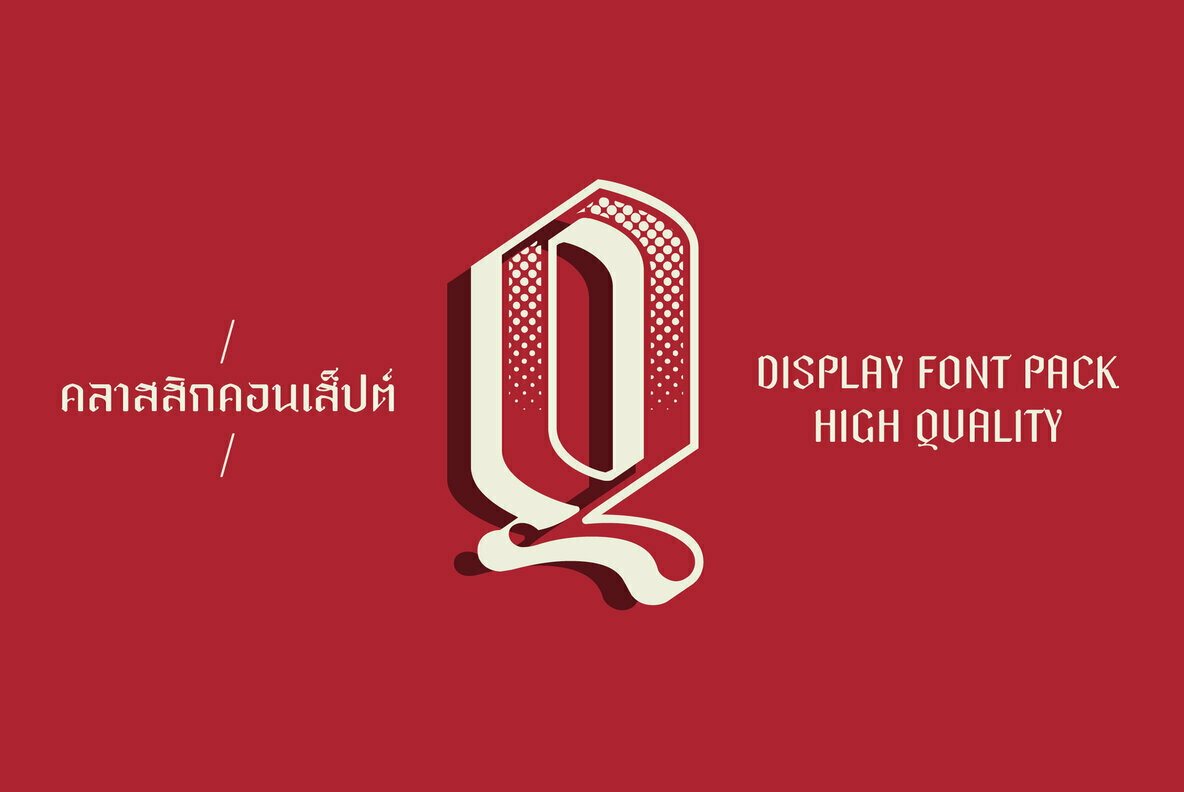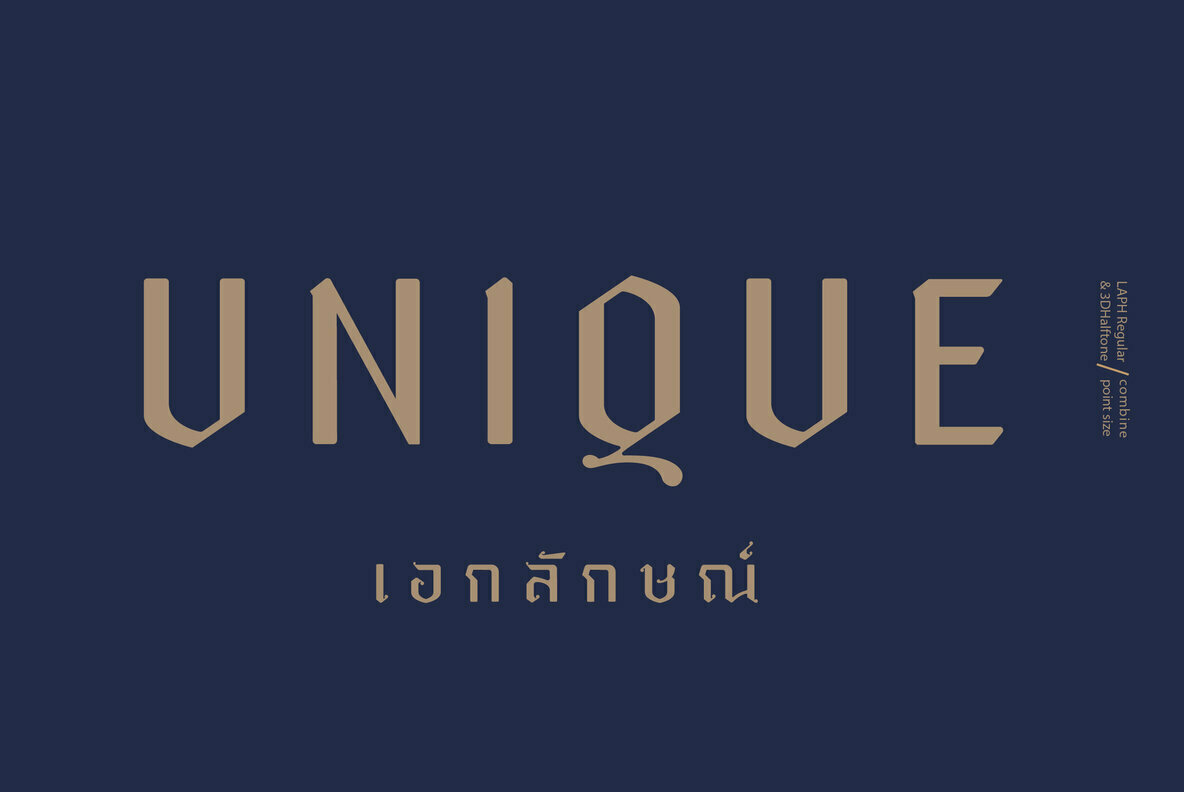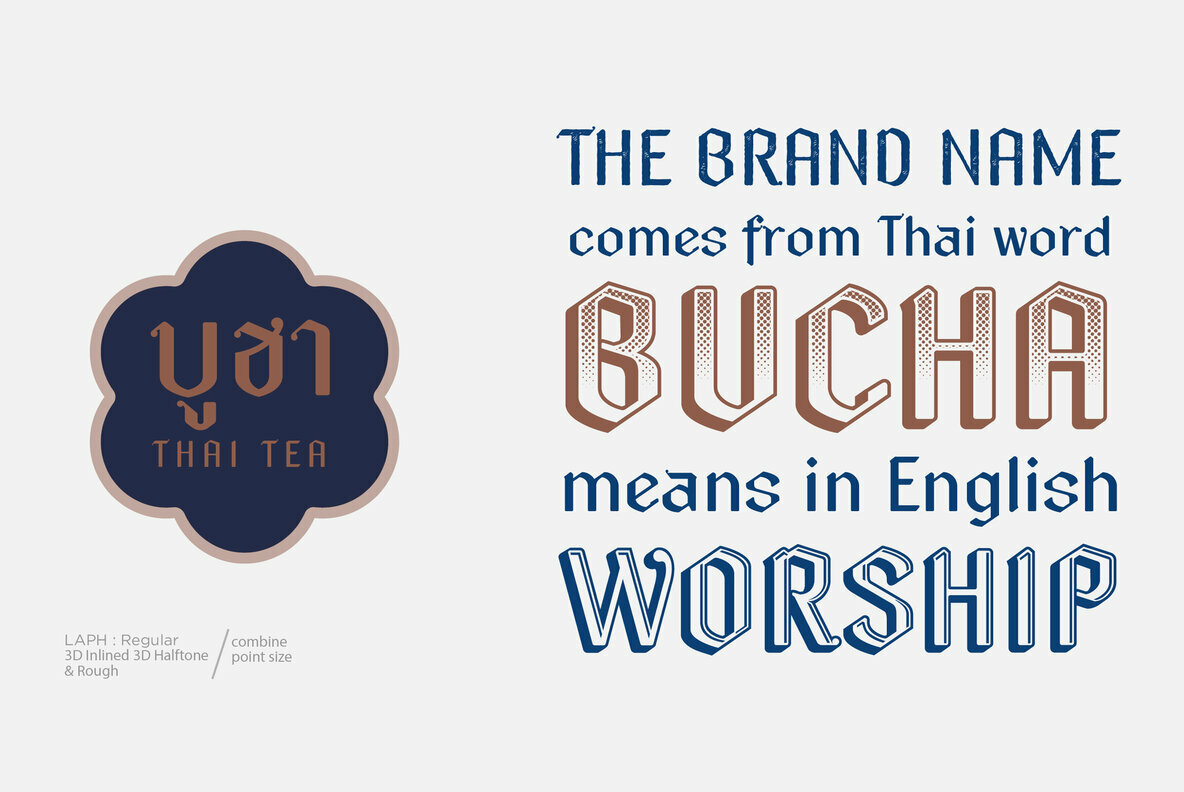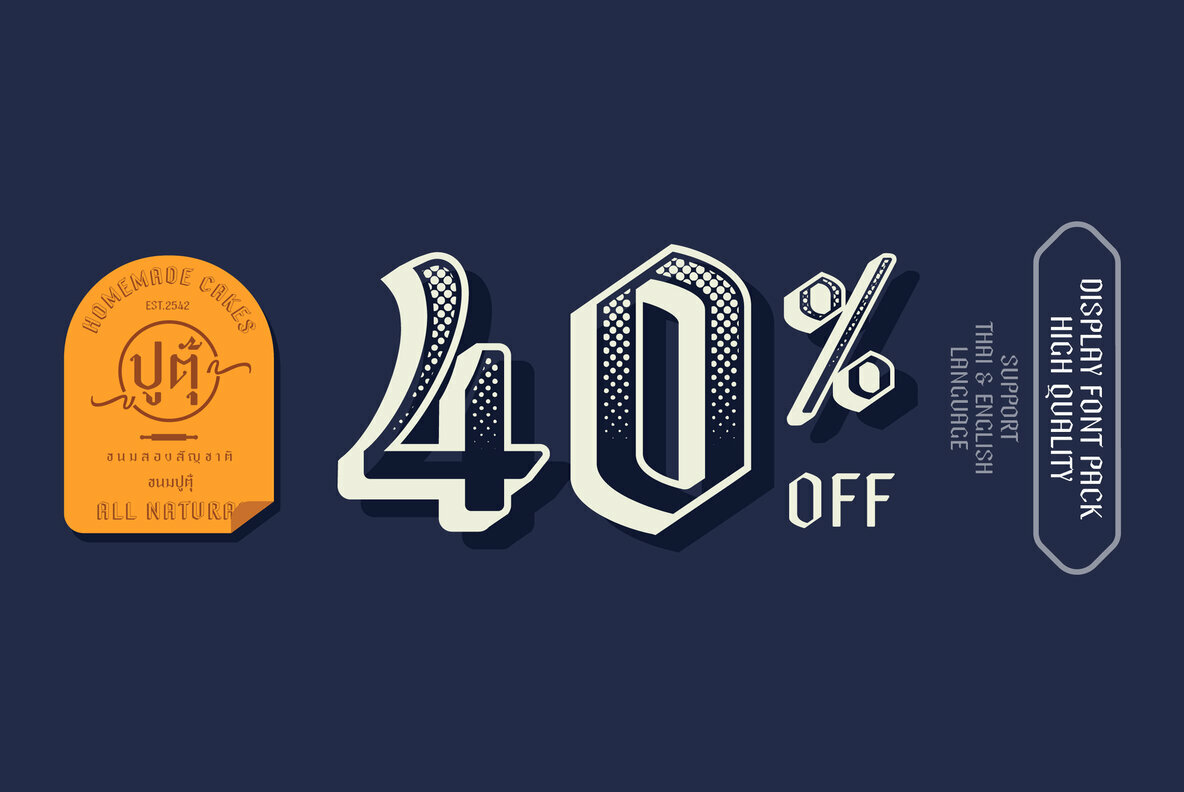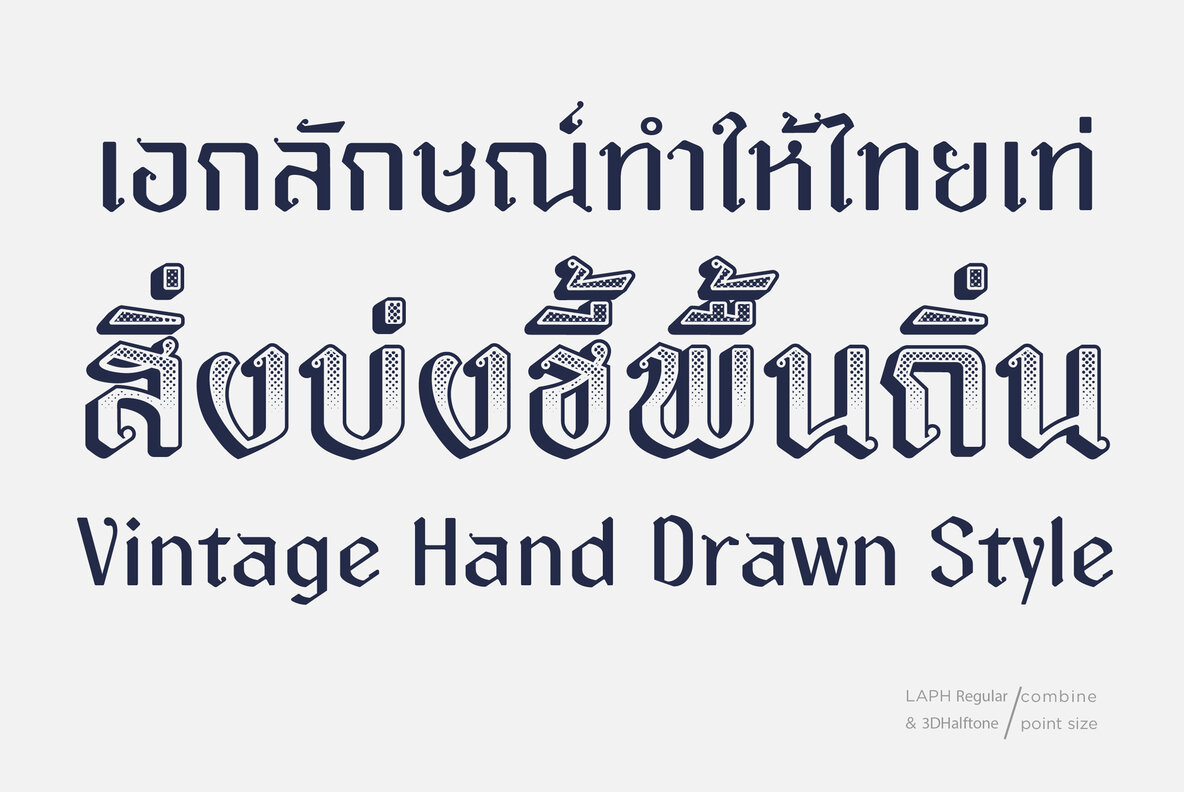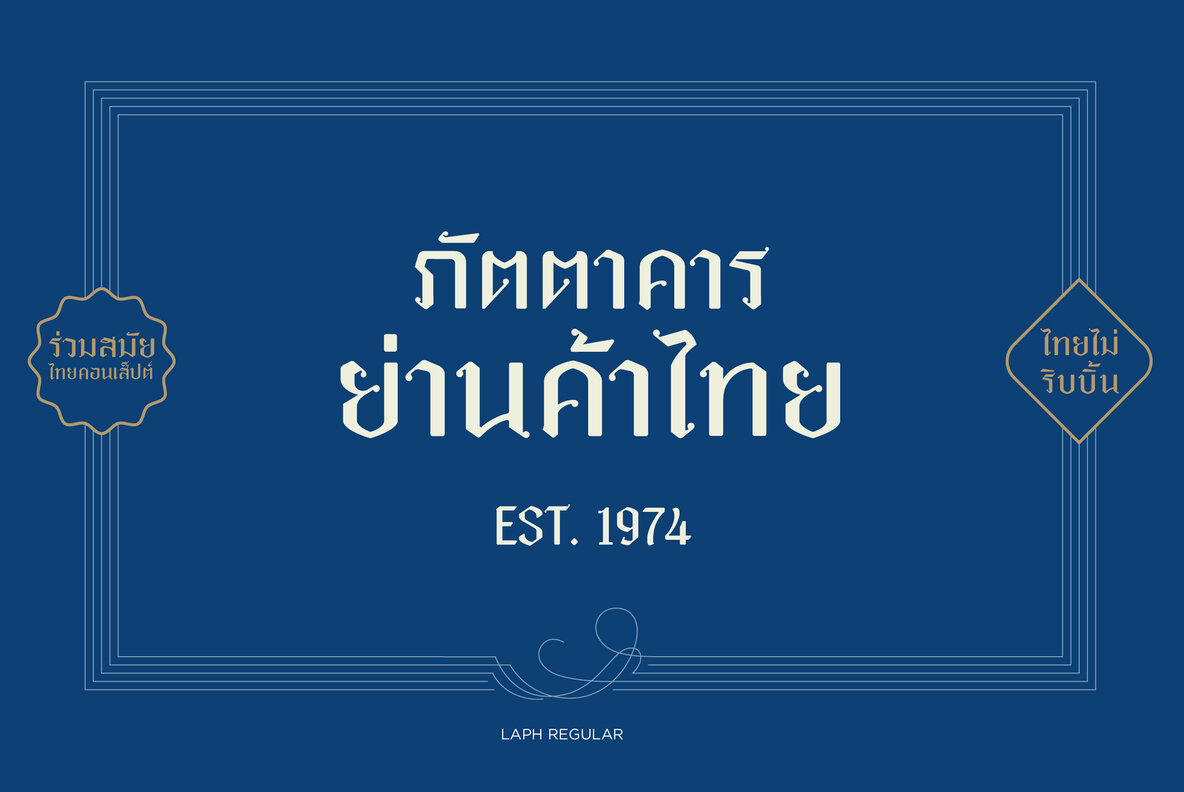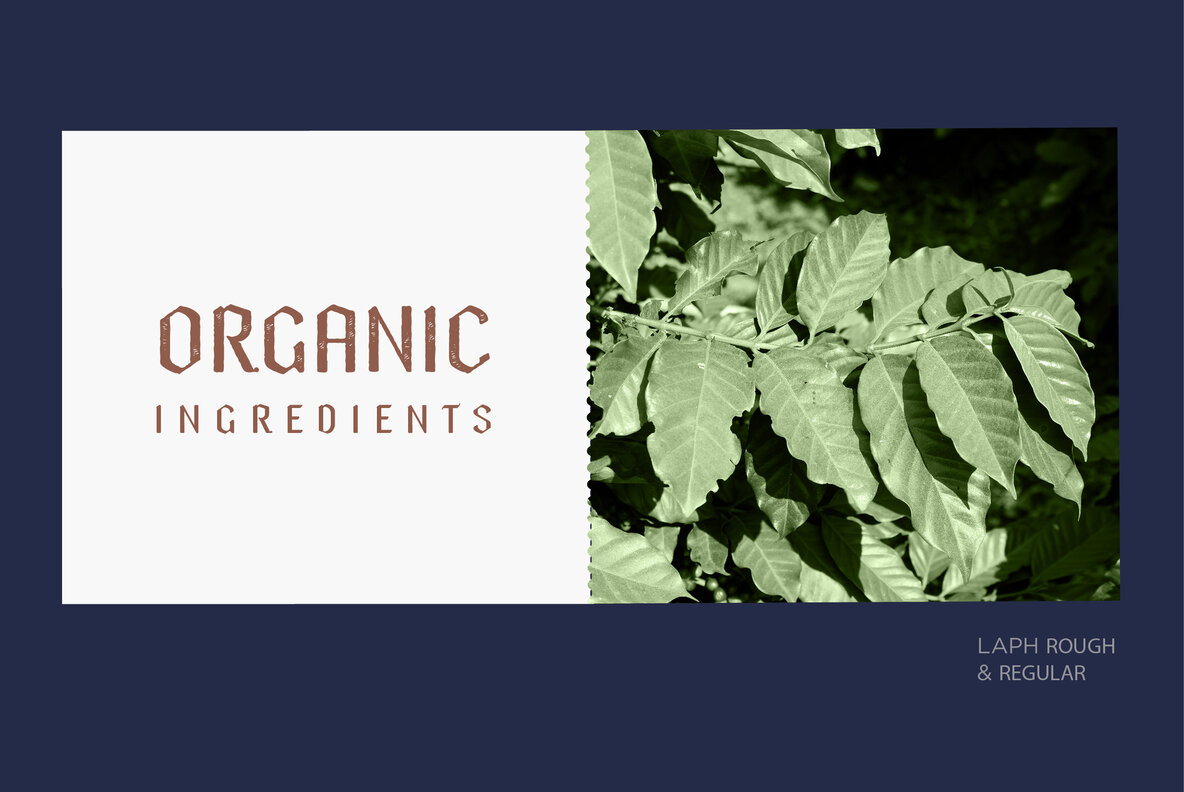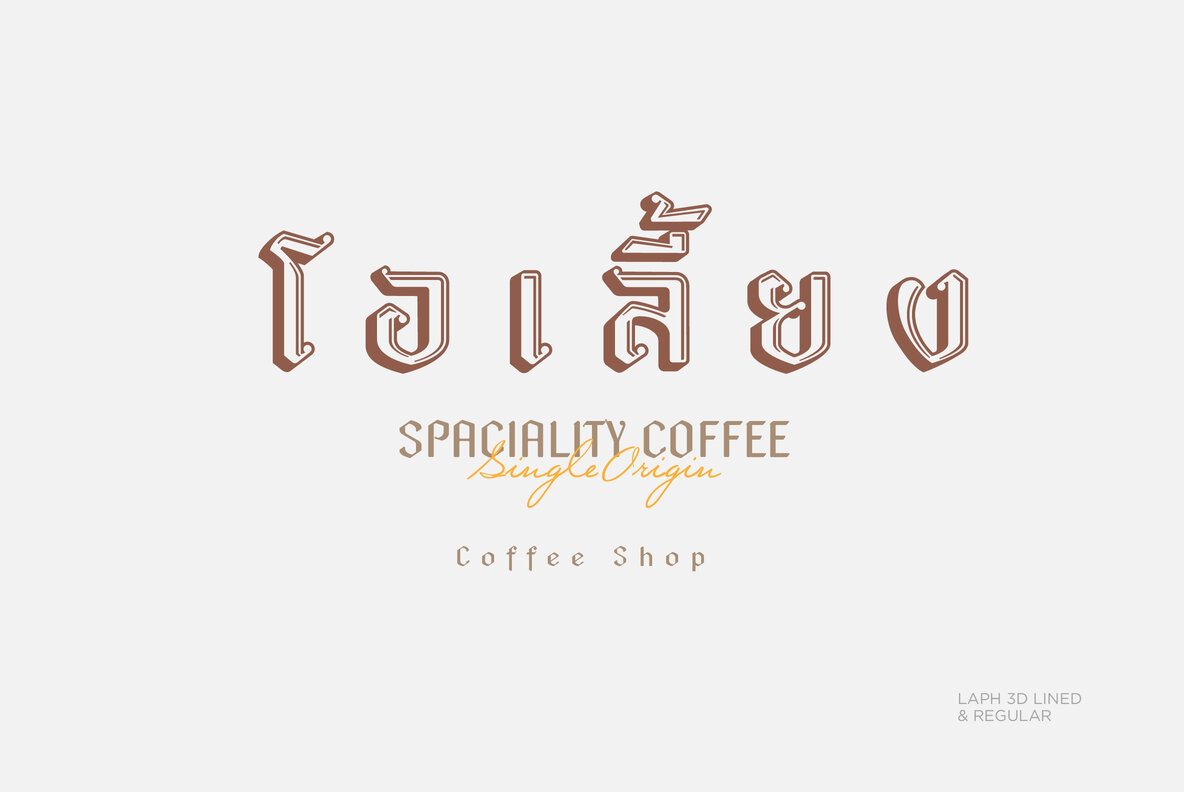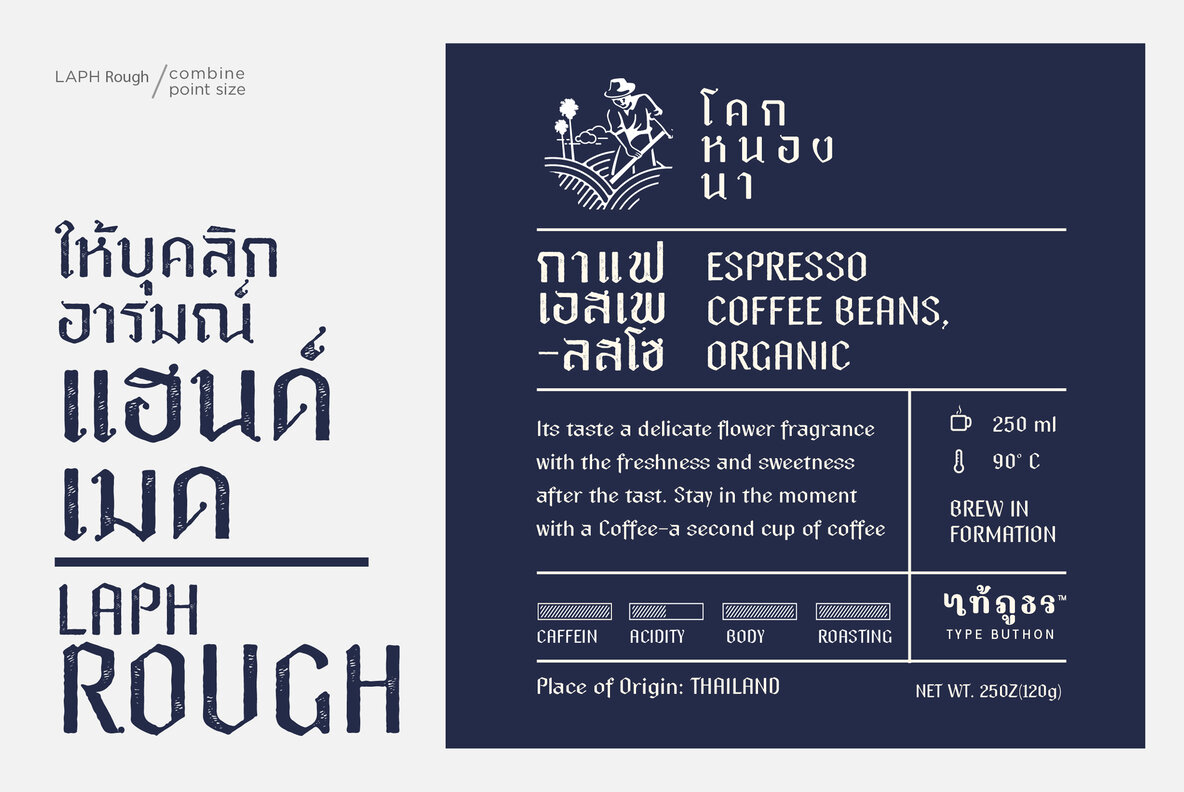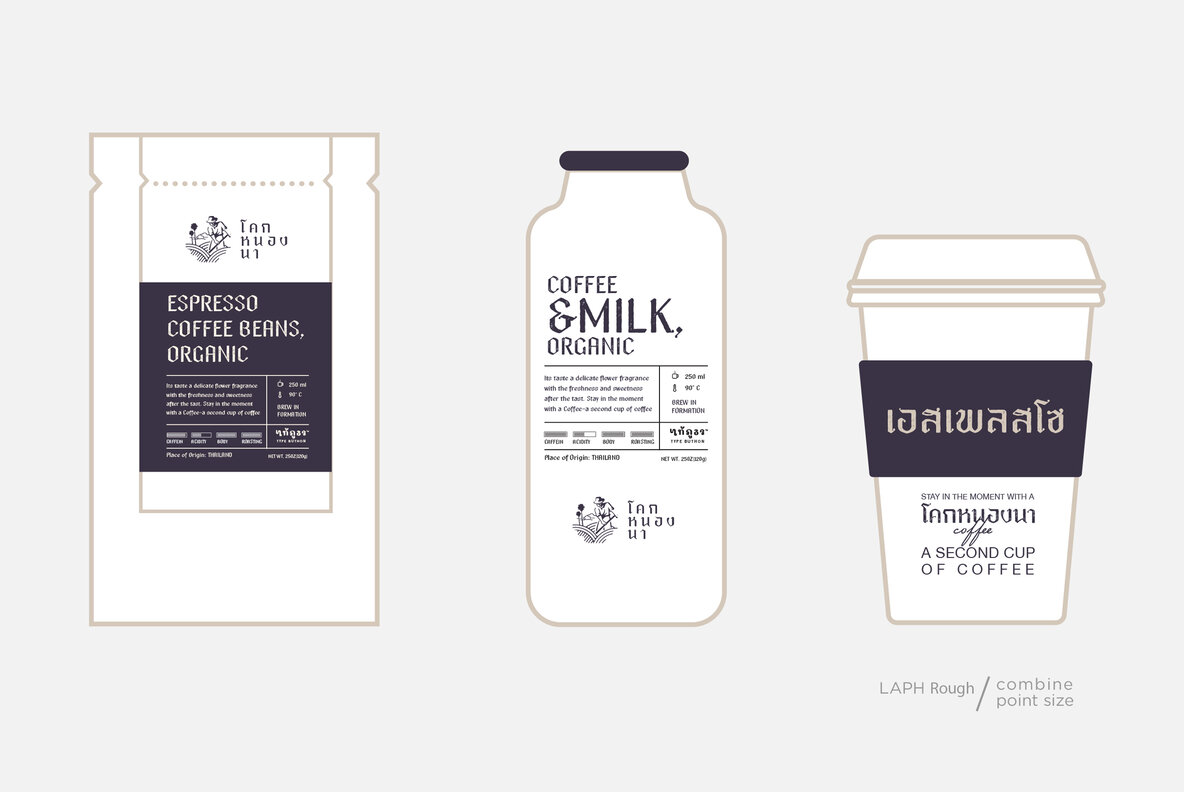
LAPH
LAPH Regular
LAPH Rough
LAPH 3D Halftone
LAPH 3D Inlined
LAPH inspired by worldly conditions; worldly vicissitudes (ลาภ มีลาภ — gain) and apply the retro Thai lettering with some Modern touch.
Great for almost all of your designing needs including the headline, labels, logo, etc. If you like Vintage Hand drawn style, Laph Family come with vintage style
and adds some Rough to feel more hand-drawn.
LAPH Family includes 4 fonts: Laph Regular, Rough, 3D Inlined and 3D Halftone.